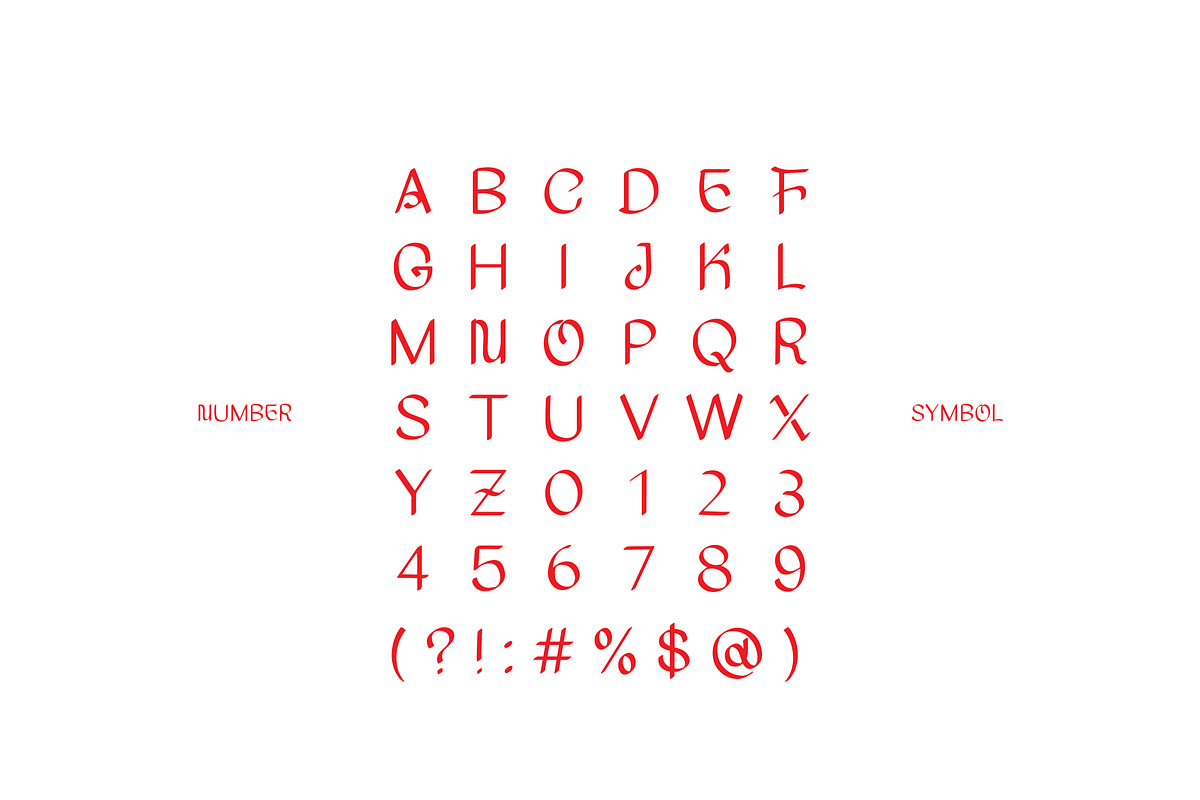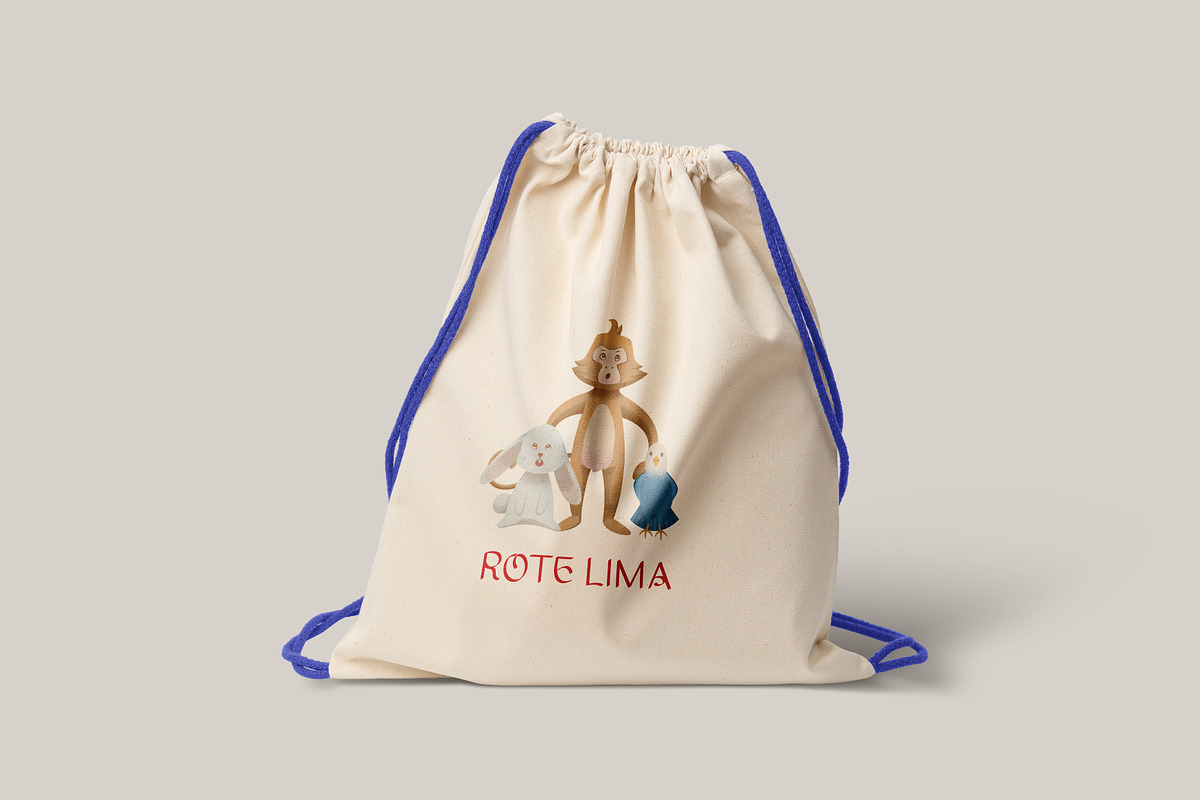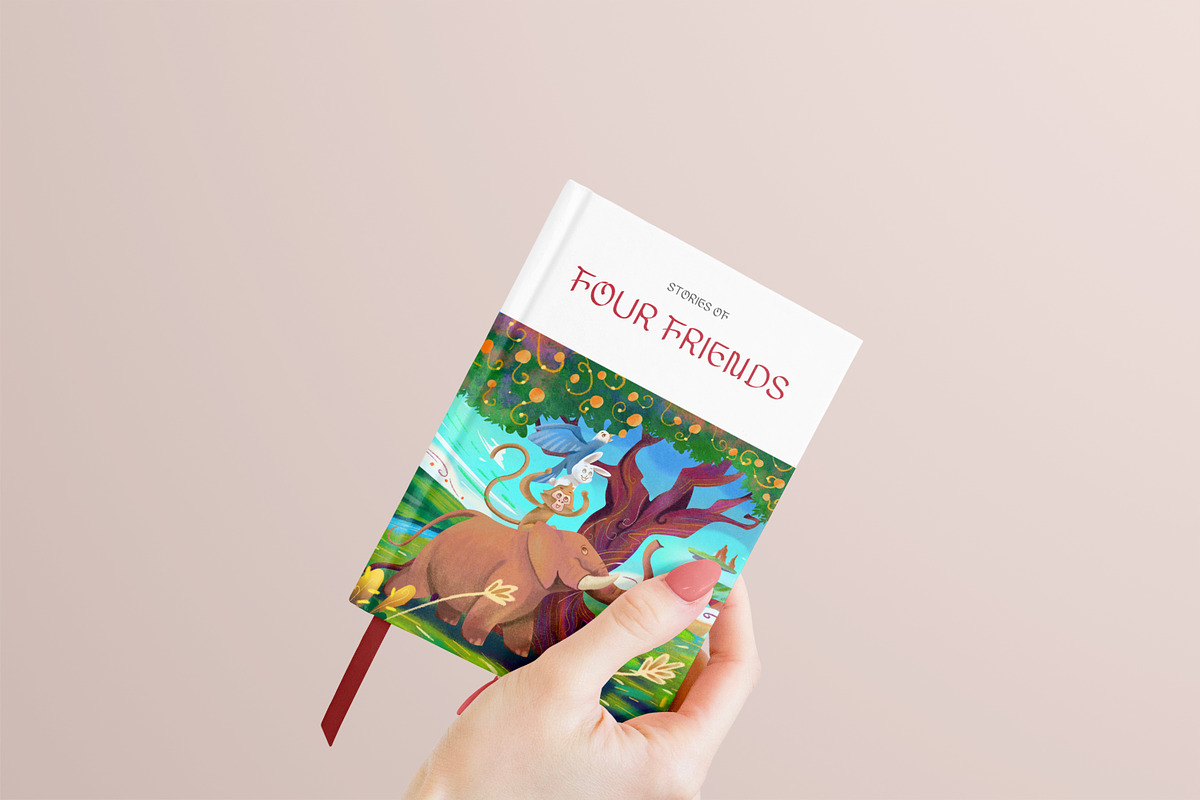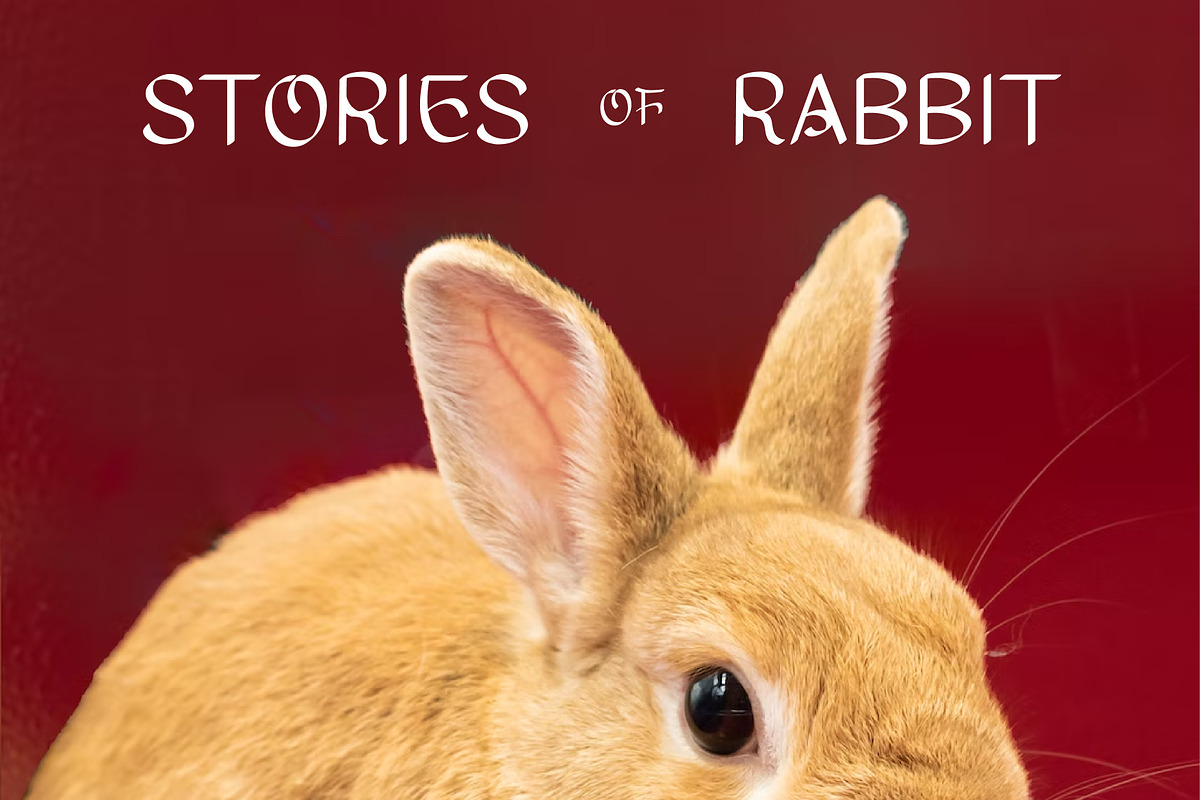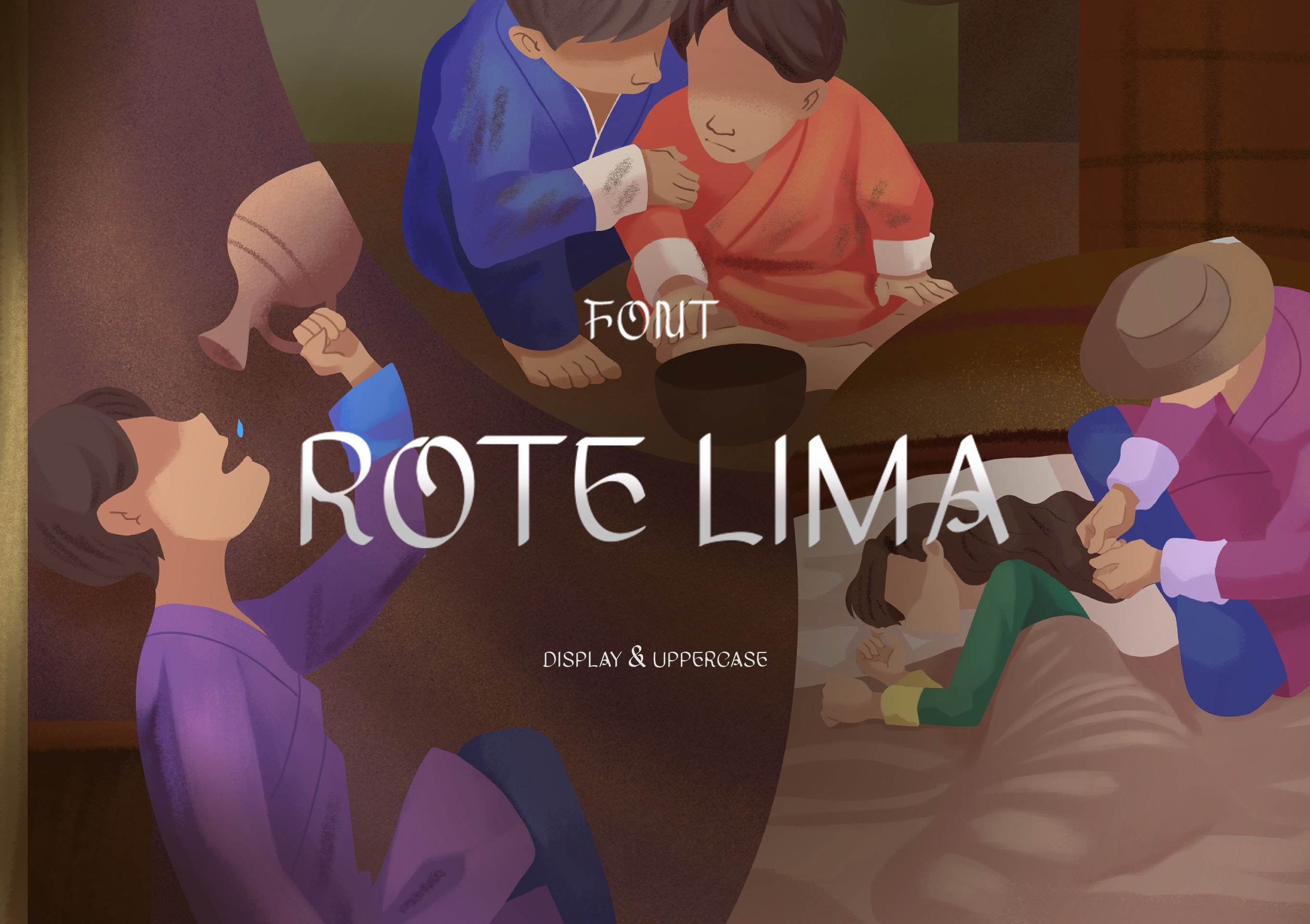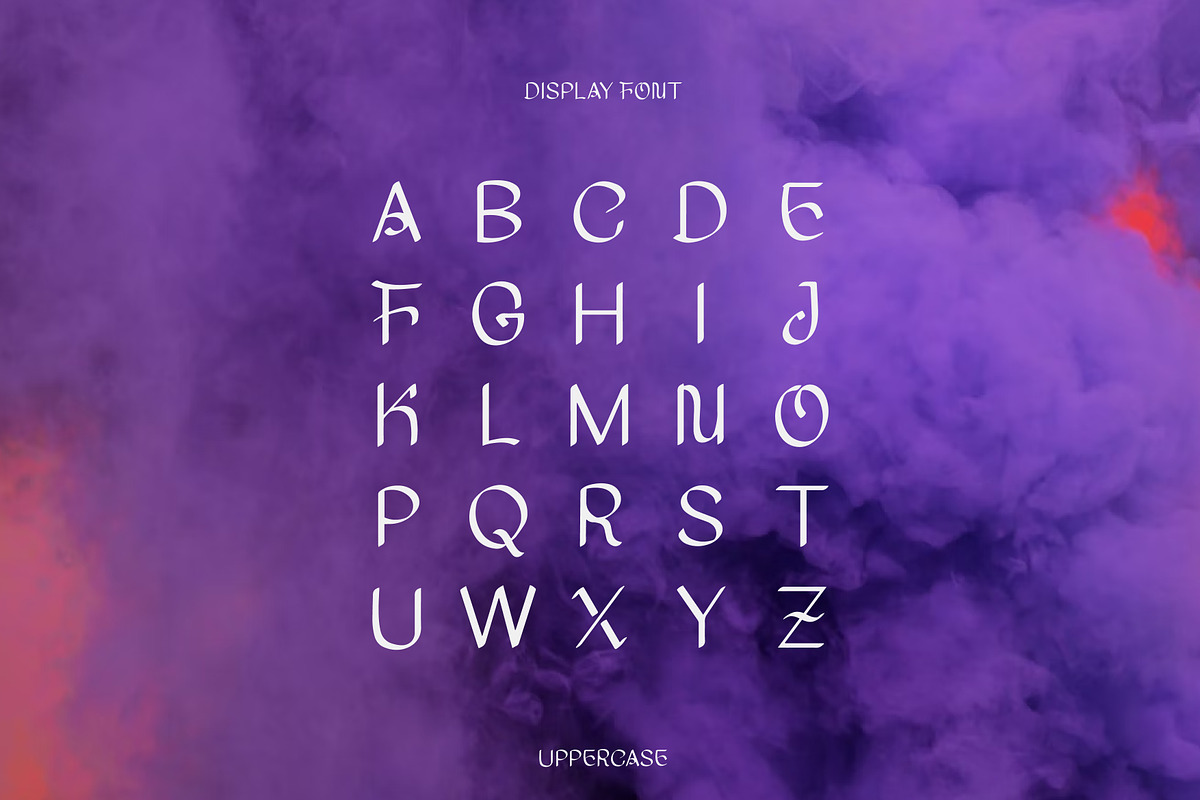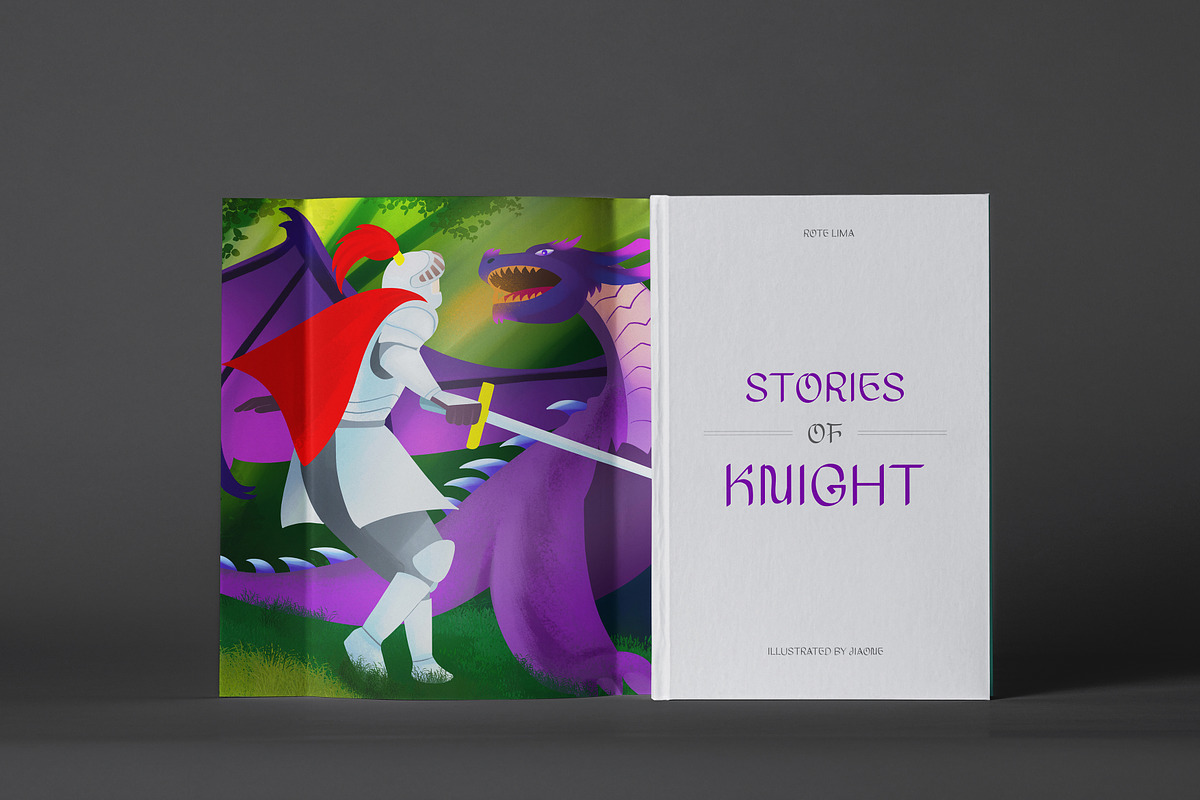
ROTE LIMA - DISPLAY FONT
ROTE LIMA FONT is designed with a children's story approach that has mysterious impressions or characters, classic stories, and old times. This font is a display font with uppercase, number, and symbol.